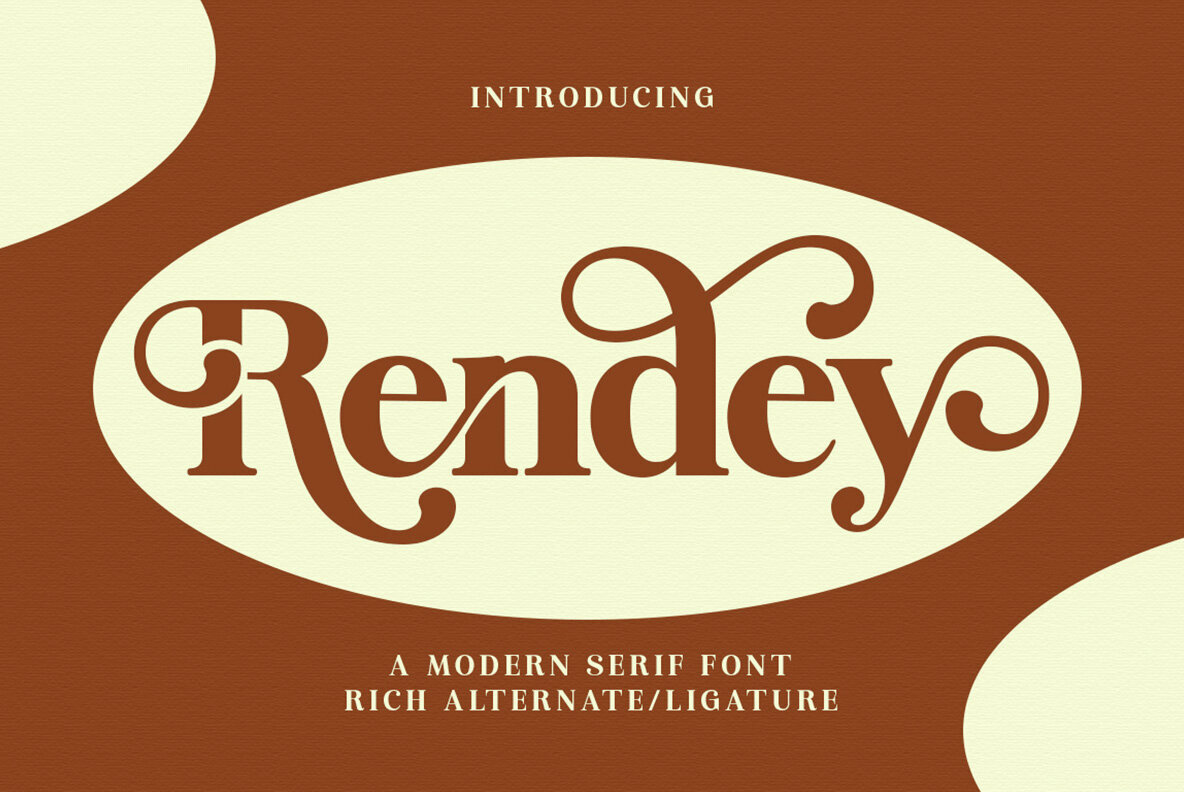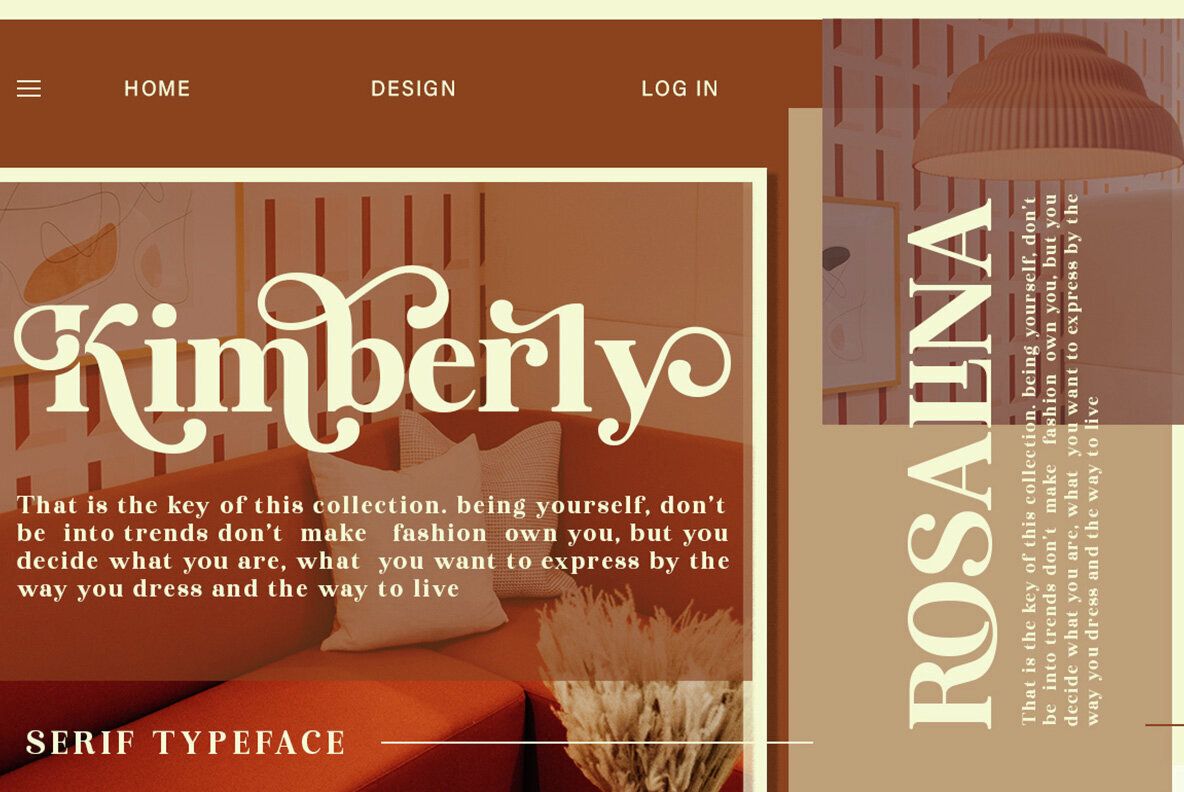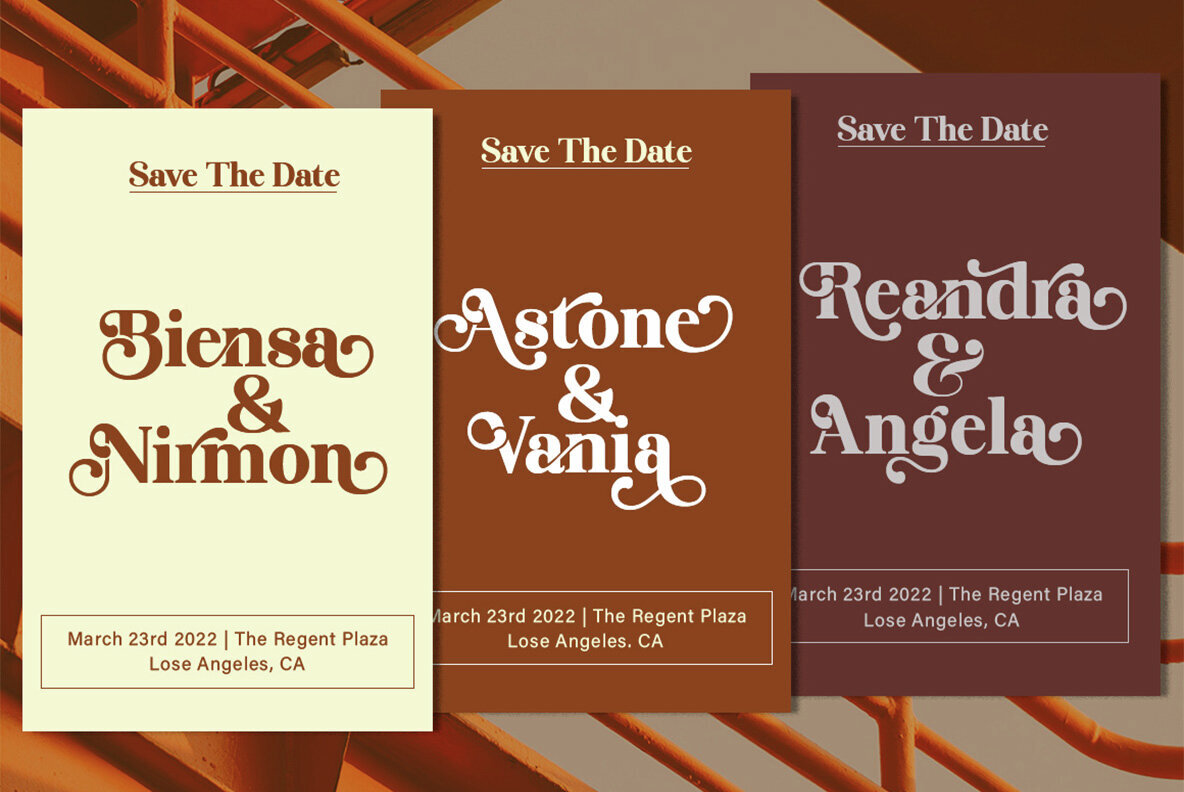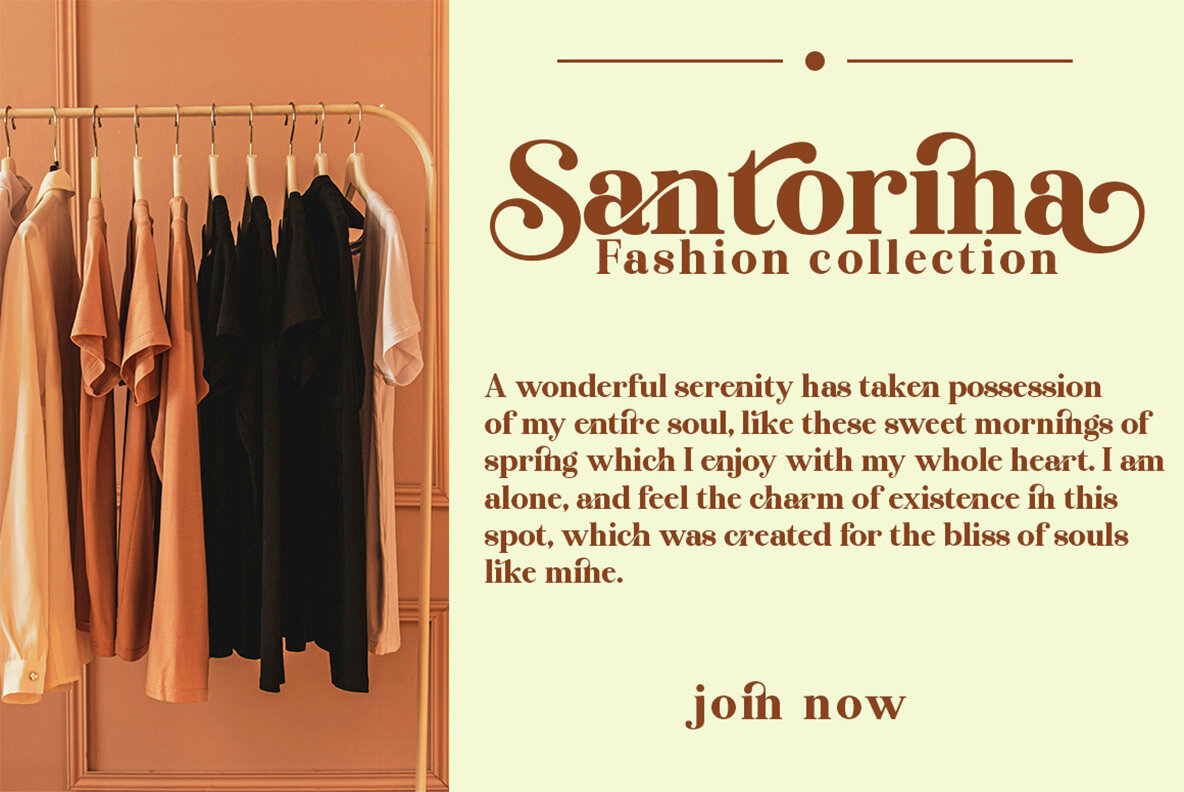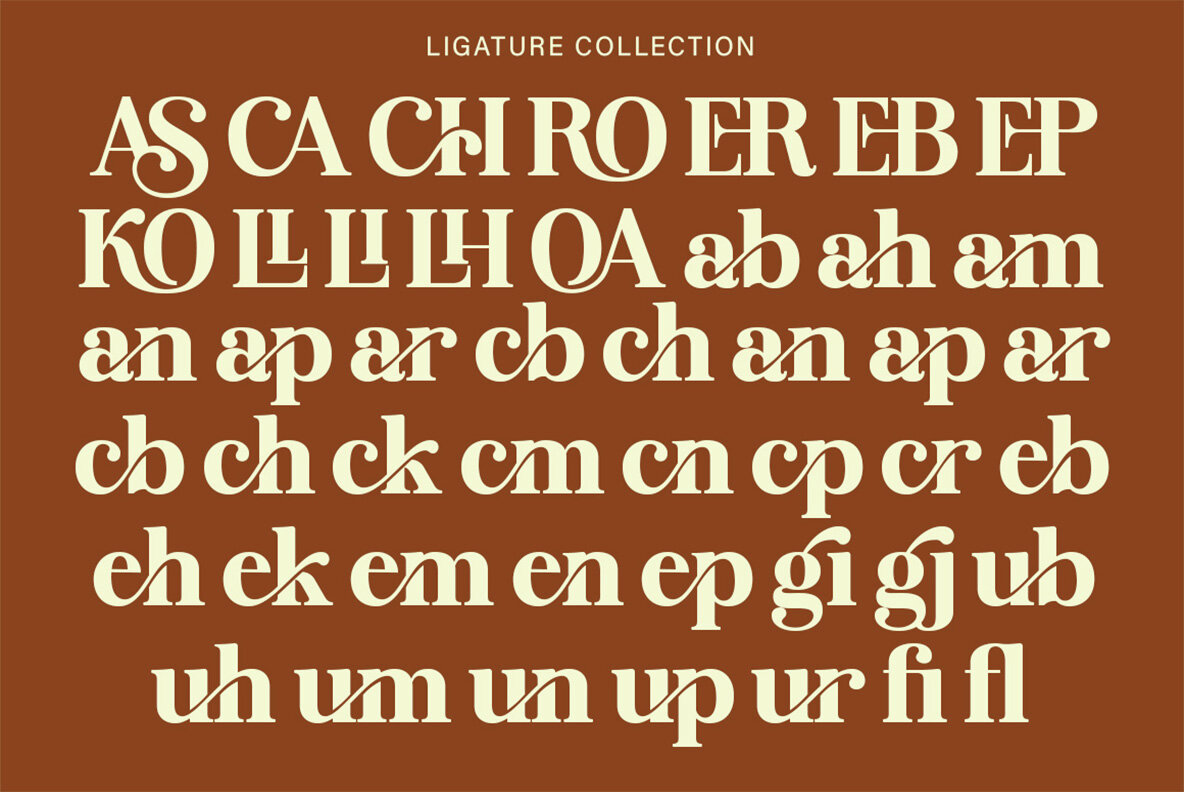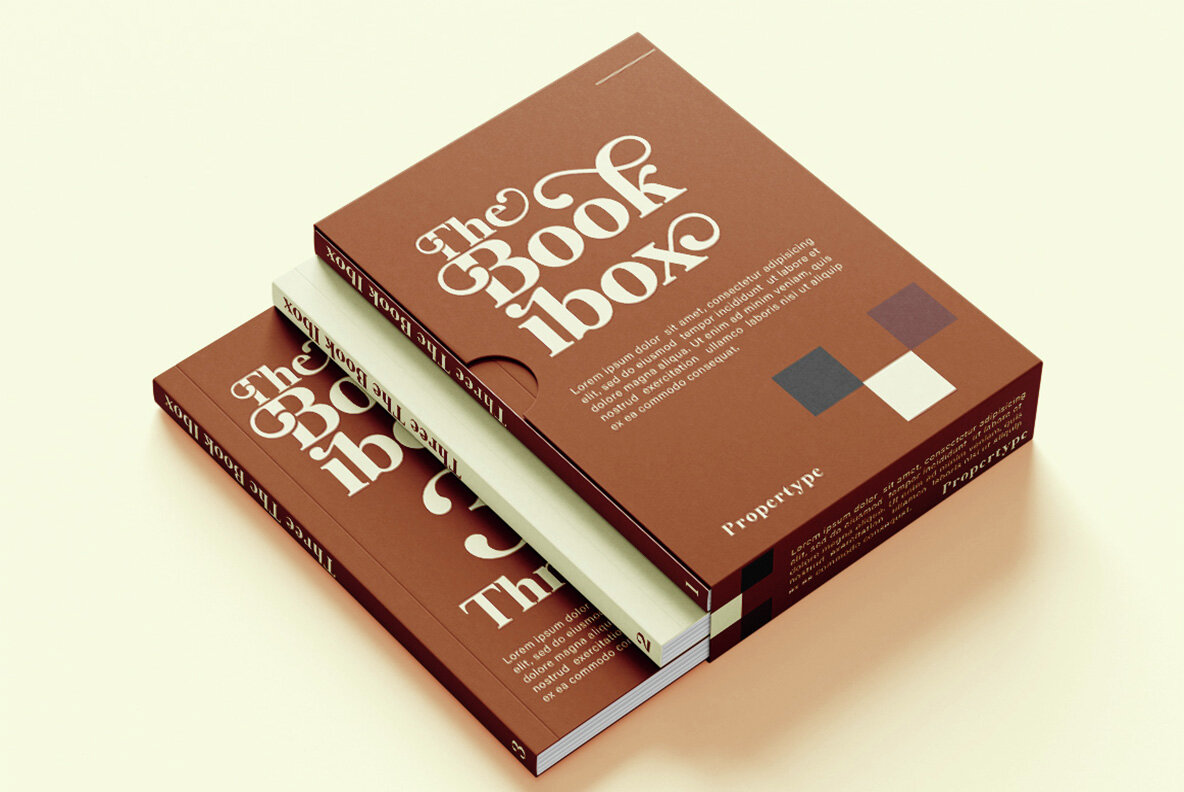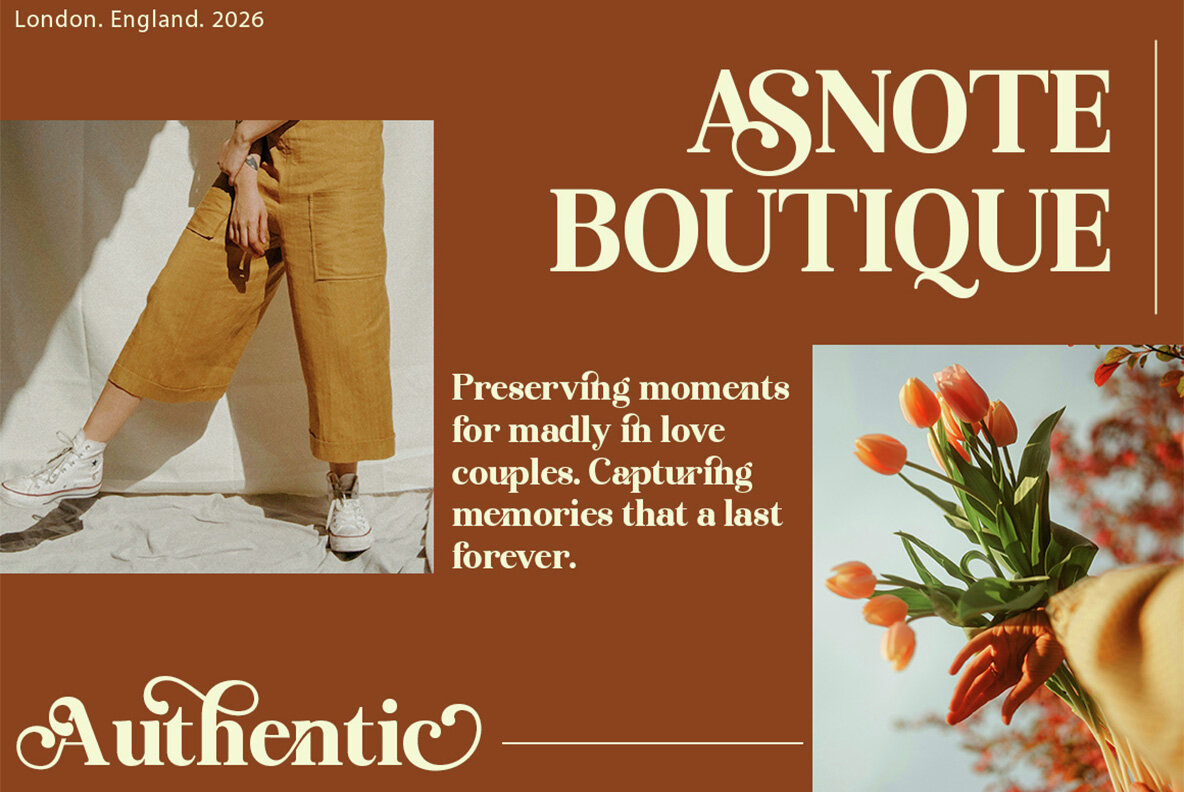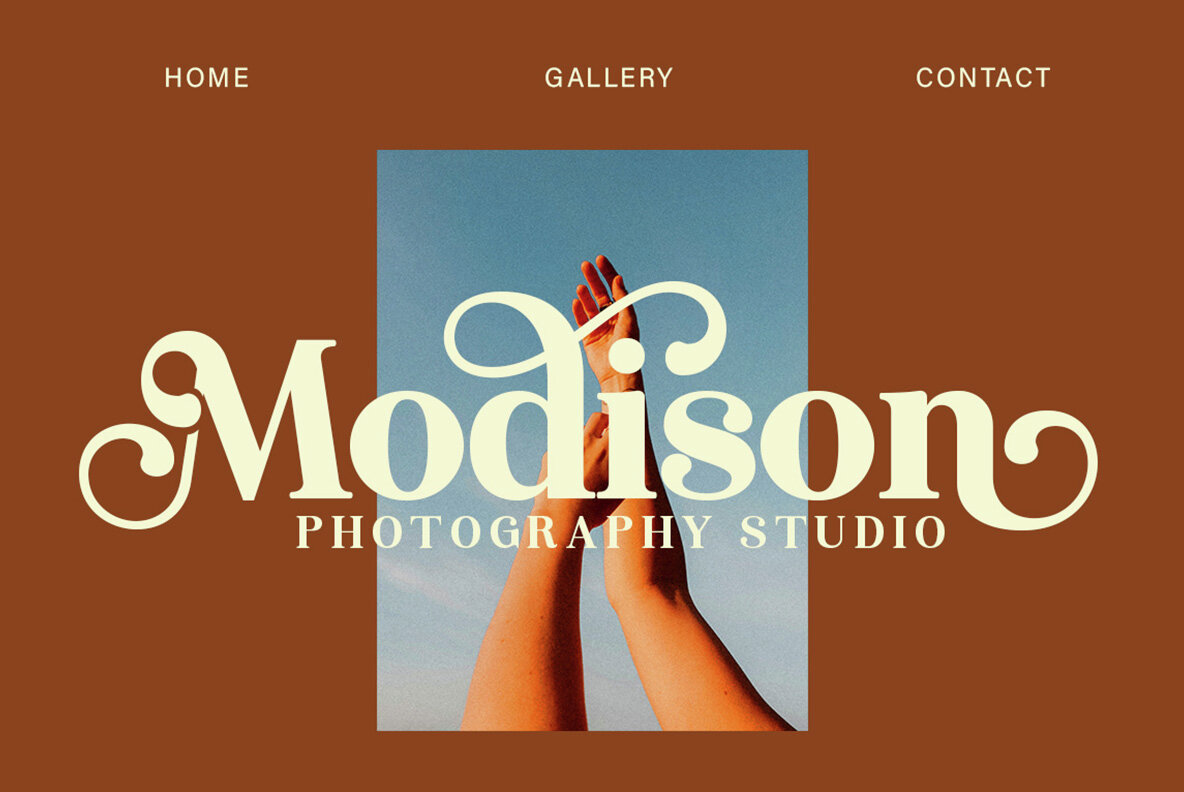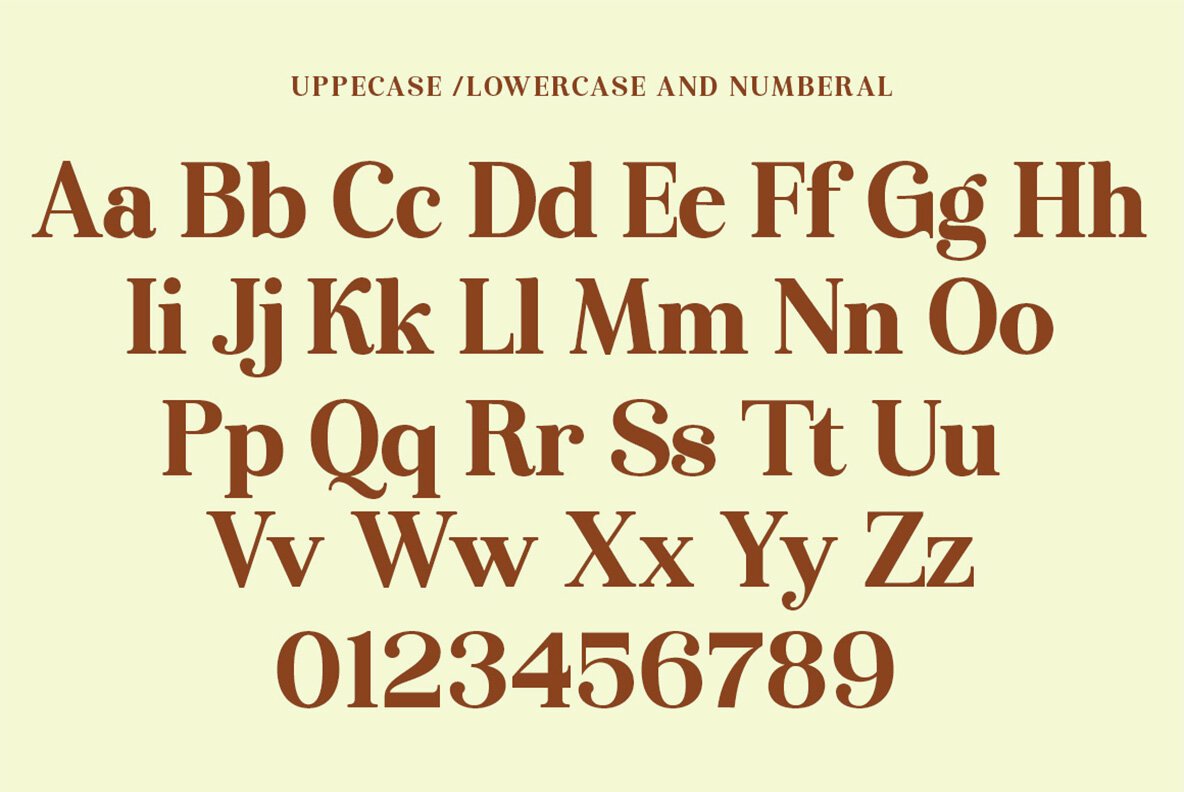
Rendey Font
Rendey Regular
Rendey effortlessly combines modern elegance with versatile functionality, making it an ideal choice for any design project. Featuring a complete set of uppercase and lowercase letters, numbers, punctuation, and multilingual symbols, this serif font is both sleek and sophisticated. Whether you're crafting logos, holiday cards, wedding invitations, or advertisements, Rendey's contrast lines and distinctive curved terminals add a touch of grace to your work. Discover the beauty and functionality of Rendey for your next design masterpiece, with all elements easily accessible even without specialized design software.Rendey: The Elegant Serif Font